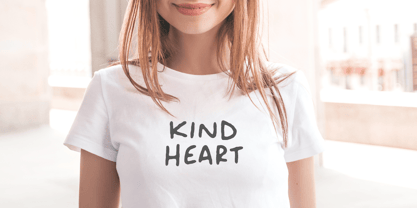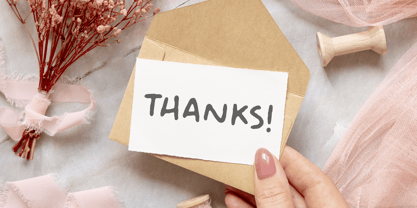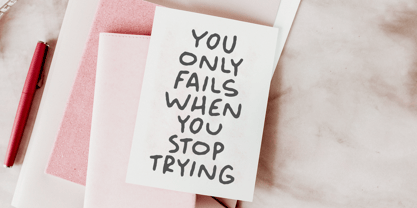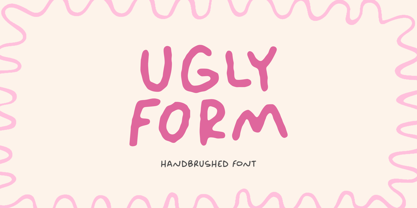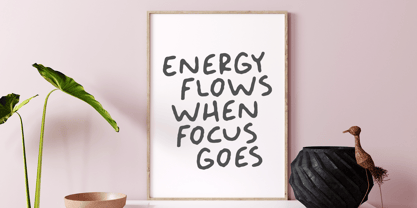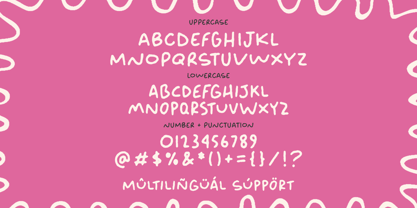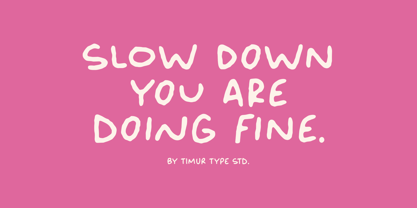
Ugly Form
von Timurtype
Die Schriftfamilie Ugly Form wurde von Ibnu Nur Rahman entworfen und von Timurtype veröffentlicht. Ugly Form enthält 1 Stile. Mehr über diese Familie
Introduced by Timurtype Studio!
Ugly Form is a Handbrushed Font
This font is a bold handbrushed font with a raw, expressive character. Its rough strokes and imperfect texture bring a rebellious, edgy feel to posters, branding, apparel, album artwork, and creative designs.
Ugly Form Font also supports multilingualism
Designer: Ibnu Nur Rahman
Foundry: Timurtype